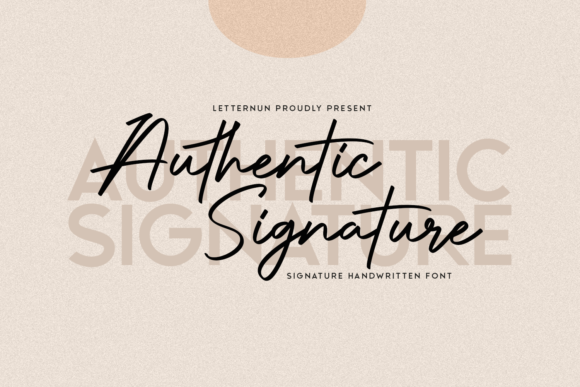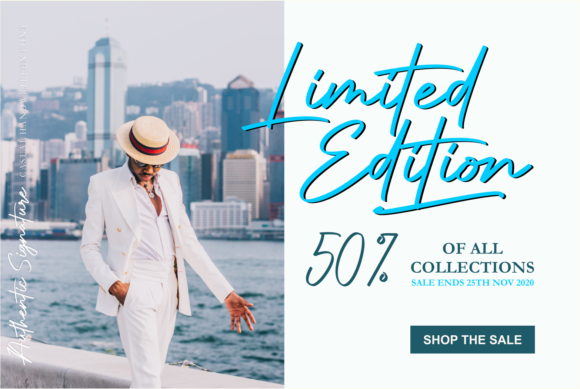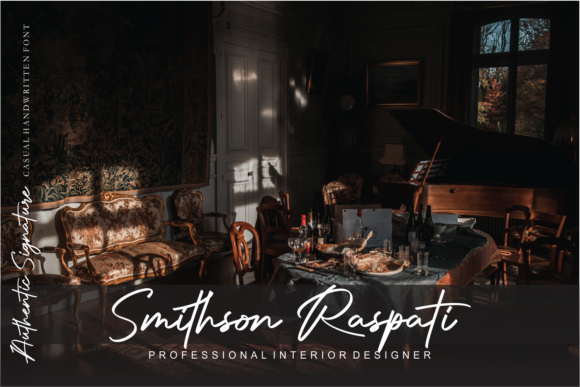
Authentic Signature Font
About the Authentic Signature Font
Get ready to be inspired by Authentic Signature Font, a fresh and dynamic typeface for modern creators. Authentic Signature is a fashionable script with its own unique curves and an elegant inky flow.
It is perfect for branding projects, logos, wedding designs, social media posts, advertisements, product packaging, product designs, label, photography, watermark, invitation, stationery and any projects that need handwriting taste.
Authentic Signature’s elegant yet casual style makes it ideal for branding projects requiring a touch of personal warmth, particularly logos, invitations, and short-form marketing materials. It excels in headlines, short quotes, and packaging where its distinctive curves add visual appeal. However, its script nature renders it less suitable for body text or UI elements where readability is paramount. Avoid using it for lengthy paragraphs or applications demanding high legibility.
Pairing it with a clean sans-serif like Montserrat or a geometric sans-serif such as Futura creates a balanced contrast, allowing Authentic Signature to shine as a prominent focal point. For a more classic feel, consider pairing it with a refined serif font like Garamond or Didot.
The font projects a confident, yet approachable personality; its slightly informal feel makes it perfect for brands aiming for a sophisticated, yet friendly image.
Authentic Signature Font Usage Examples
Authentic Signature Font Example